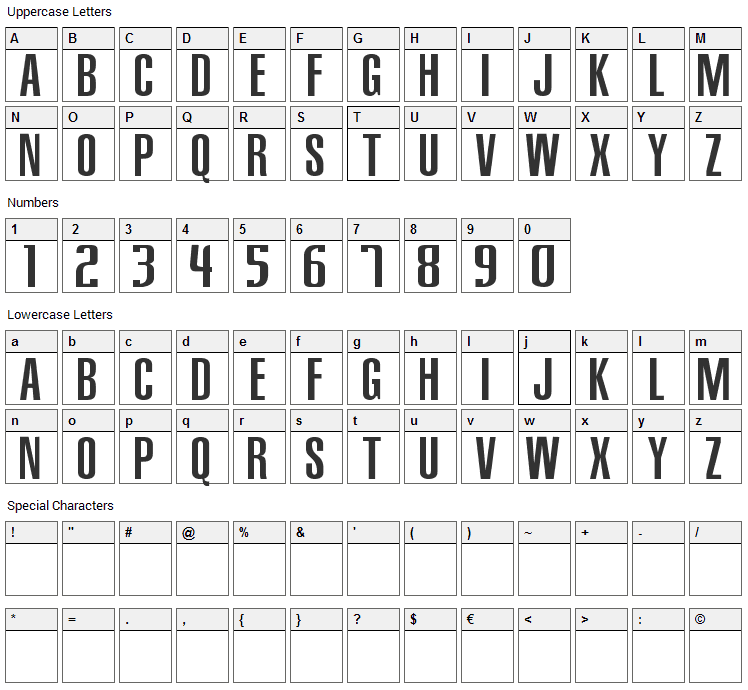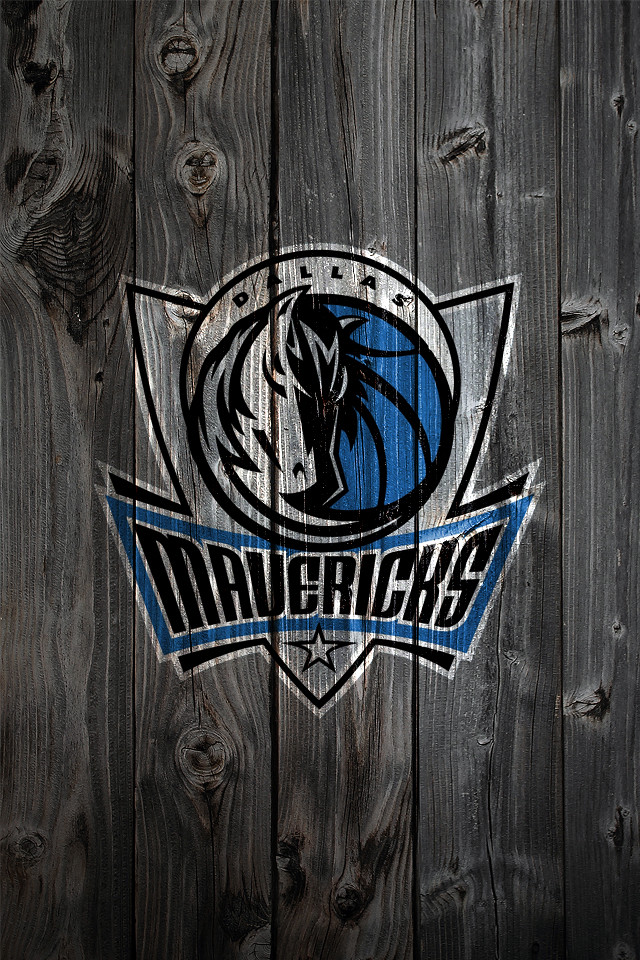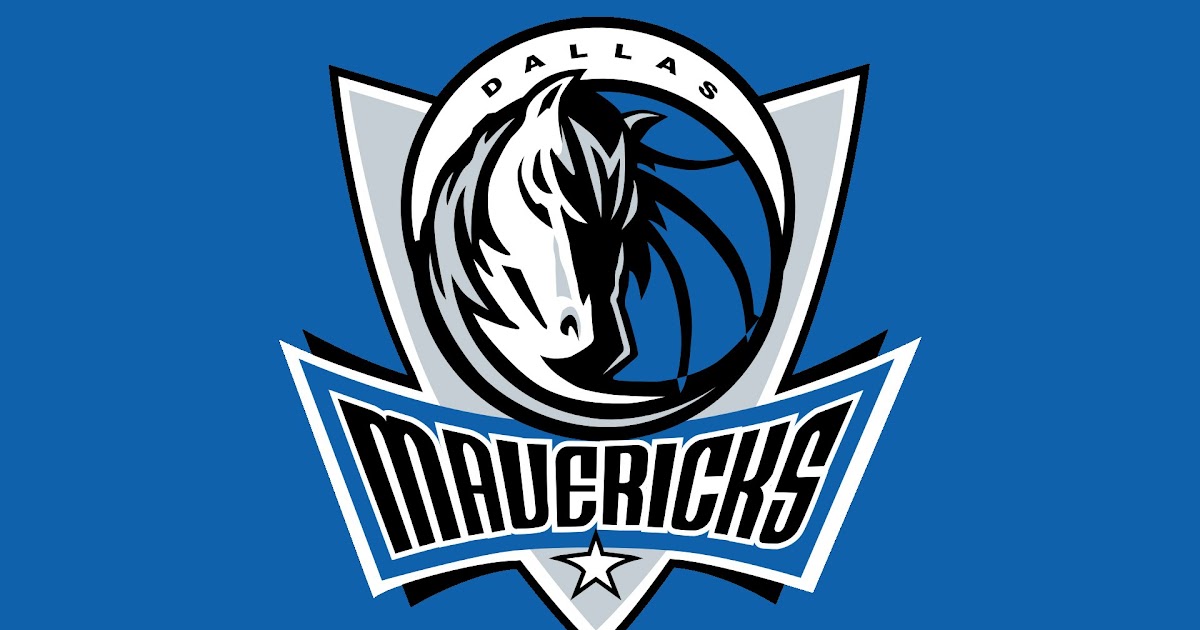
Dallas Mavericks Font
Dallas Mavericks Font - The time is now 16:19. Web the font used in the dallas mavericks logo is bold, assertive, and speaks of a legacy. It stands tall, announcing its. Web learn about the font used for the dallas mavericks logo, a display sans serif font similar to tf cavalier upright bold.
Web learn about the font used for the dallas mavericks logo, a display sans serif font similar to tf cavalier upright bold. Web the font used in the dallas mavericks logo is bold, assertive, and speaks of a legacy. It stands tall, announcing its. The time is now 16:19.
Web learn about the font used for the dallas mavericks logo, a display sans serif font similar to tf cavalier upright bold. It stands tall, announcing its. Web the font used in the dallas mavericks logo is bold, assertive, and speaks of a legacy. The time is now 16:19.
Web the font used in the dallas mavericks logo is bold, assertive, and speaks of a legacy. The time is now 16:19. Web learn about the font used for the dallas mavericks logo, a display sans serif font similar to tf cavalier upright bold. It stands tall, announcing its.
It stands tall, announcing its. The time is now 16:19. Web learn about the font used for the dallas mavericks logo, a display sans serif font similar to tf cavalier upright bold. Web the font used in the dallas mavericks logo is bold, assertive, and speaks of a legacy.
Web learn about the font used for the dallas mavericks logo, a display sans serif font similar to tf cavalier upright bold. It stands tall, announcing its. Web the font used in the dallas mavericks logo is bold, assertive, and speaks of a legacy. The time is now 16:19.
The time is now 16:19. Web learn about the font used for the dallas mavericks logo, a display sans serif font similar to tf cavalier upright bold. It stands tall, announcing its. Web the font used in the dallas mavericks logo is bold, assertive, and speaks of a legacy.
Web learn about the font used for the dallas mavericks logo, a display sans serif font similar to tf cavalier upright bold. The time is now 16:19. It stands tall, announcing its. Web the font used in the dallas mavericks logo is bold, assertive, and speaks of a legacy.
Web learn about the font used for the dallas mavericks logo, a display sans serif font similar to tf cavalier upright bold. The time is now 16:19. Web the font used in the dallas mavericks logo is bold, assertive, and speaks of a legacy. It stands tall, announcing its.
The time is now 16:19. Web learn about the font used for the dallas mavericks logo, a display sans serif font similar to tf cavalier upright bold. It stands tall, announcing its. Web the font used in the dallas mavericks logo is bold, assertive, and speaks of a legacy.
Web learn about the font used for the dallas mavericks logo, a display sans serif font similar to tf cavalier upright bold. It stands tall, announcing its. The time is now 16:19. Web the font used in the dallas mavericks logo is bold, assertive, and speaks of a legacy.
It stands tall, announcing its. Web the font used in the dallas mavericks logo is bold, assertive, and speaks of a legacy. Web learn about the font used for the dallas mavericks logo, a display sans serif font similar to tf cavalier upright bold. The time is now 16:19.
Web learn about the font used for the dallas mavericks logo, a display sans serif font similar to tf cavalier upright bold. Web the font used in the dallas mavericks logo is bold, assertive, and speaks of a legacy. The time is now 16:19. It stands tall, announcing its.
It Stands Tall, Announcing Its.
The time is now 16:19. Web learn about the font used for the dallas mavericks logo, a display sans serif font similar to tf cavalier upright bold. Web the font used in the dallas mavericks logo is bold, assertive, and speaks of a legacy.